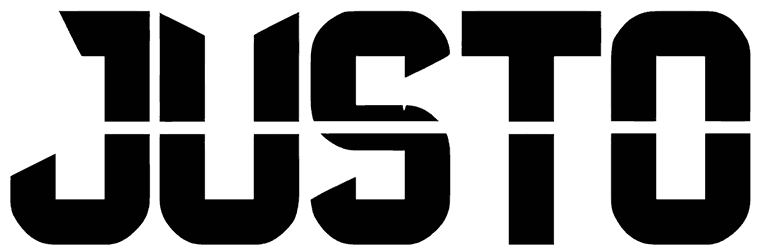
Justo St Font
If you’re looking for a modern font with a touch of vintage design to create your projects, check out Justo St for your next one. This stencil font does not support small letters, but it can adapt well to any modern project.
The angular edges and the clean cut of this sports font seem to be a suitable option for the elegant and stylish design of logos, titles, and posters in the field of technology.